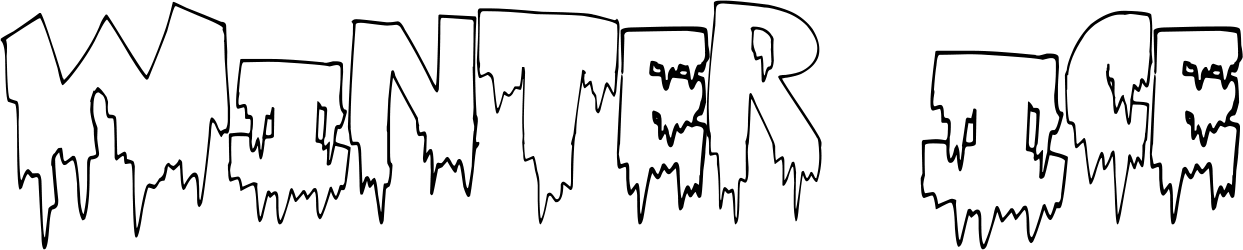
Winter Ice Font
This font will give your typography a freezing feel especially due to its characters that are outlined and have icicles that are almost melting. Winter Ice font delivers a fun, happy feel, it also looks animated and will give your ideal design a comical style.
The letterforms available for this ice font are 2 sets of capitalized alphabets whereas punctuations, lowercase letters, and numbers are not included. Try using Winter Ice for storybooks, cartoons, games, animations, and stickers.